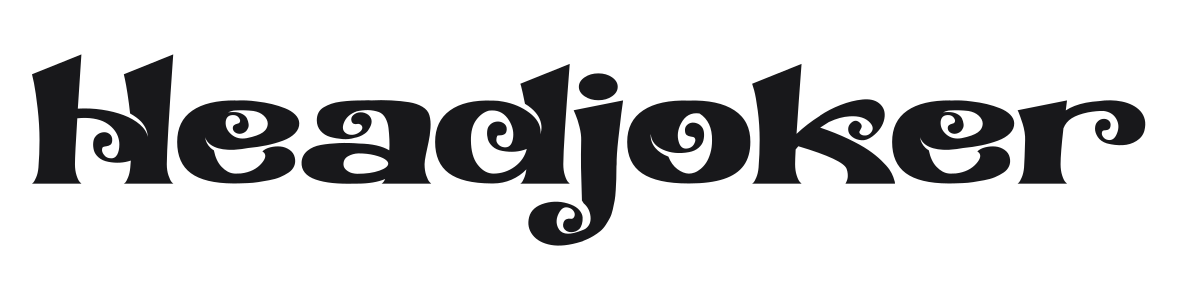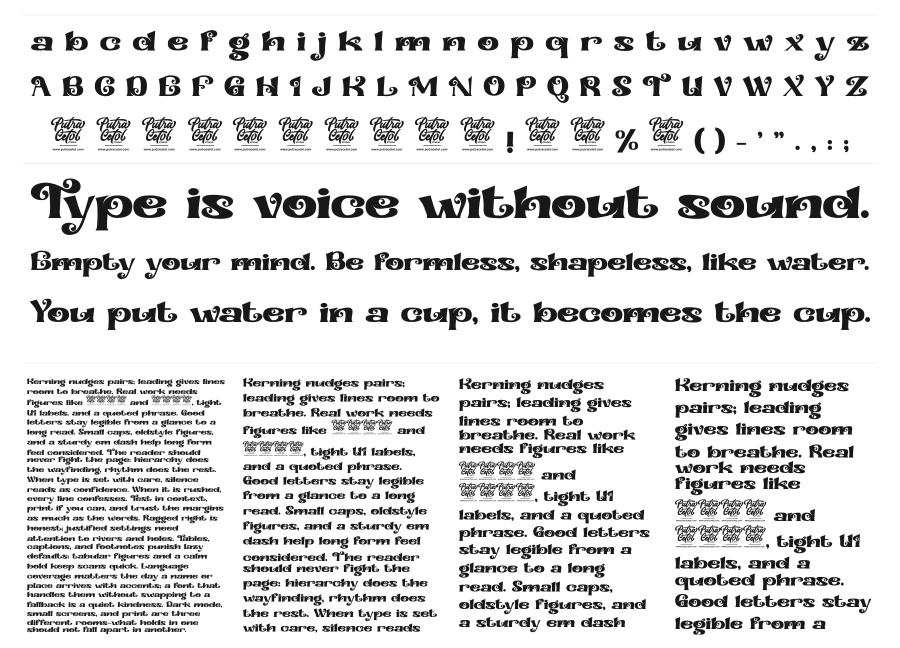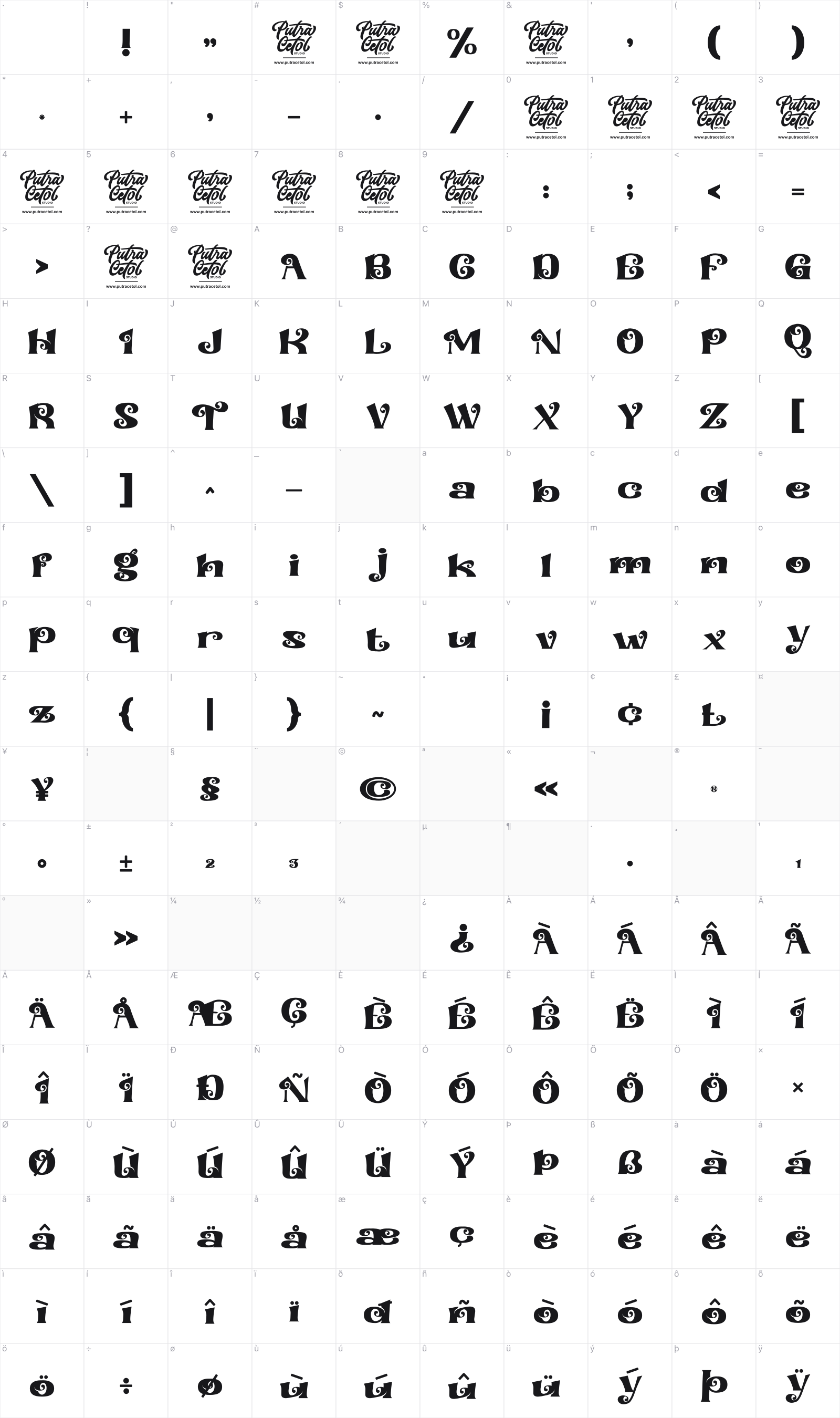
Headjoker
HeadJoker is a bold psychedelic display serif dripping with 1960s counterculture energy. Its exaggerated swelling strokes, extreme hairline contrast, and looping teardrop terminals give every word a sense of motion and visual weight. Strong for posters, album covers, and anything that needs retro personality at scale.